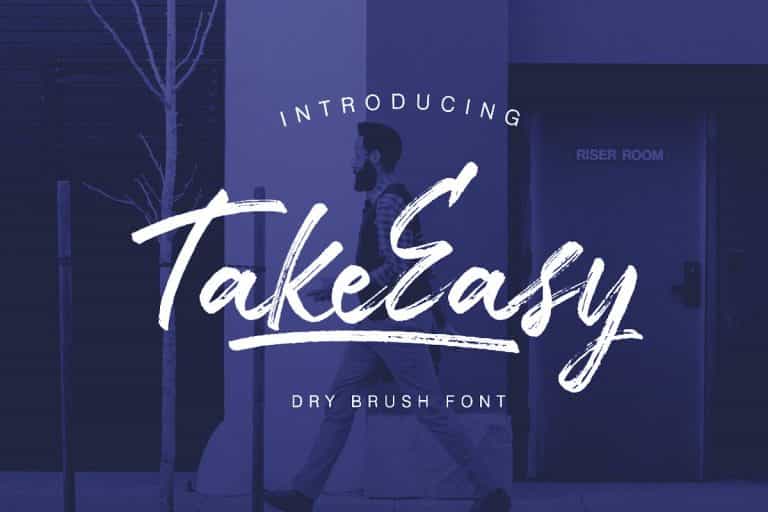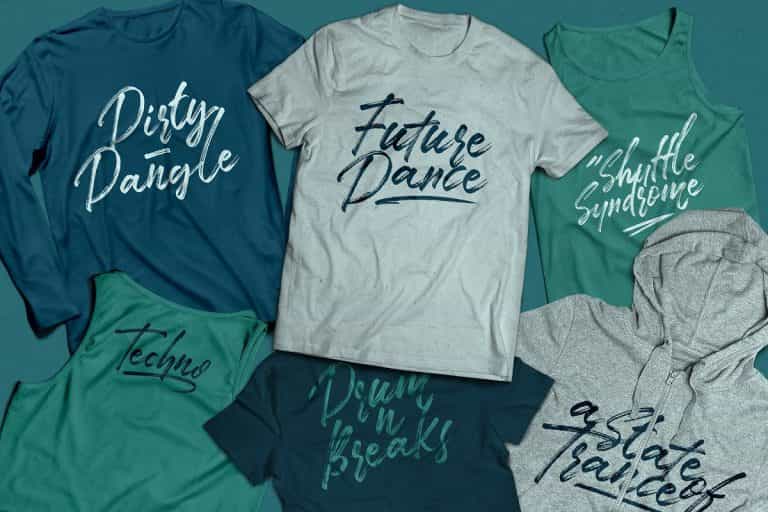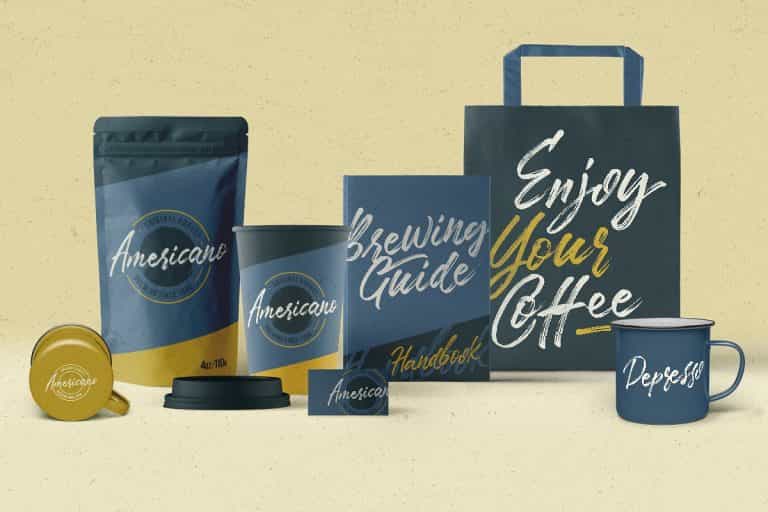
Discover TakeEasy Brush Font, part of the Brush collection—a versatile and unique font perfect for adding a personal touch to your projects. Download it for free and enjoy crafting designs with style, from invitations to social media posts. This font is available exclusively for personal use, giving you the freedom to create without limits. Unlock your creativity with TakeEasy Brush Font today!
TakeEasy Brush Font, made manually hand brush feel personal into your design needs. With special uniquely opentype feature includes the file to create the underline swash just type the underscore several times or more on the middle of the text.